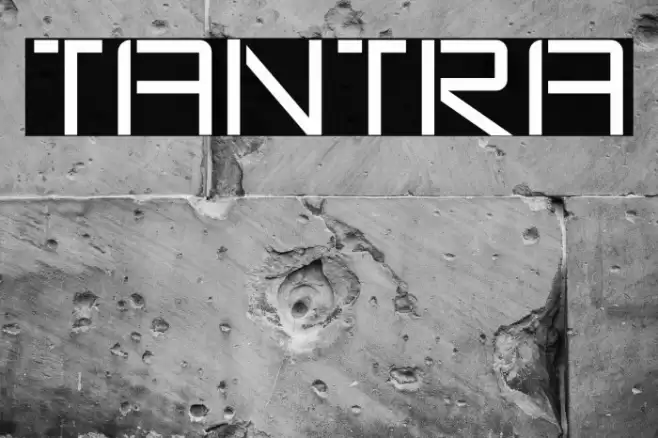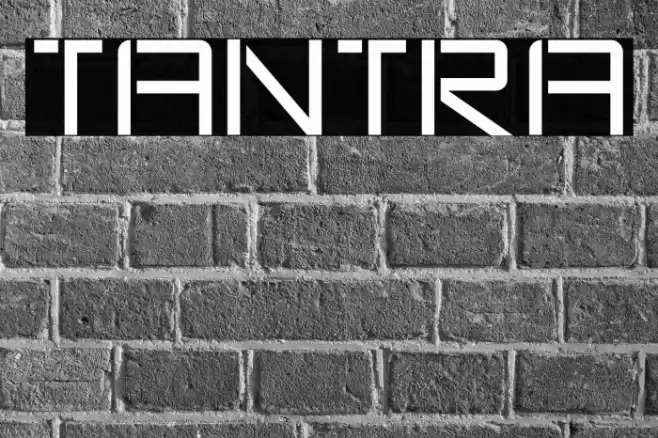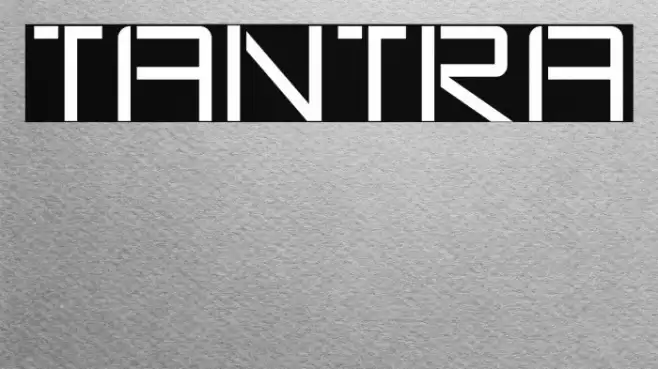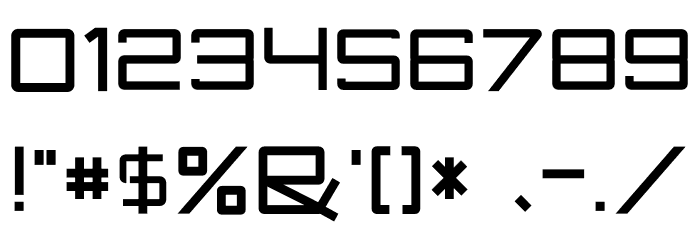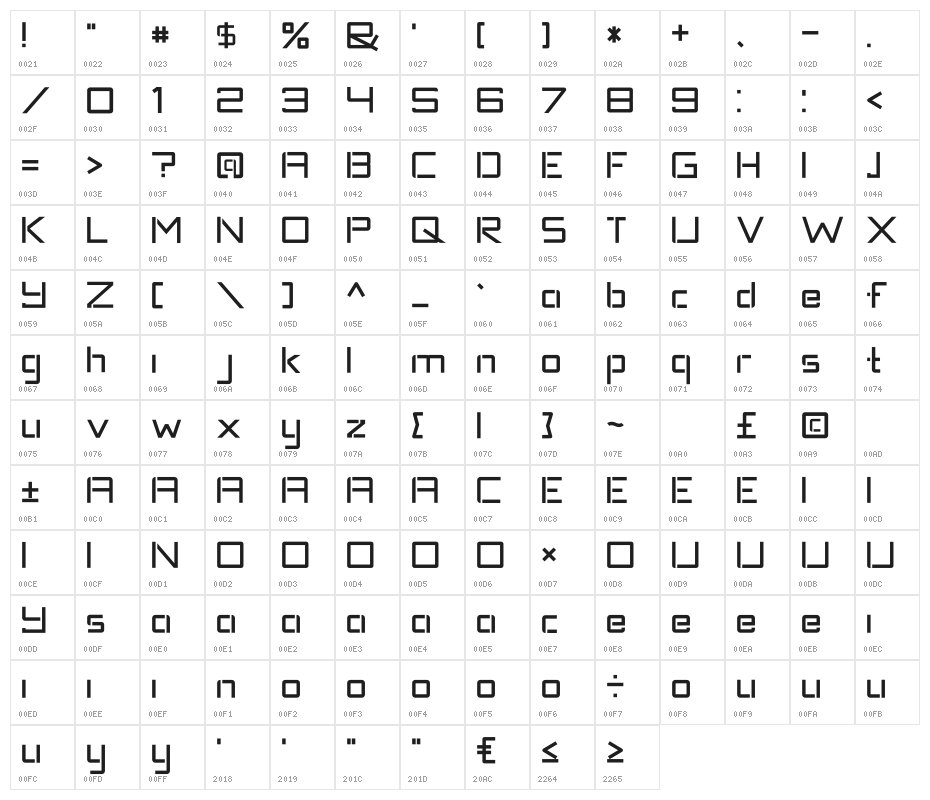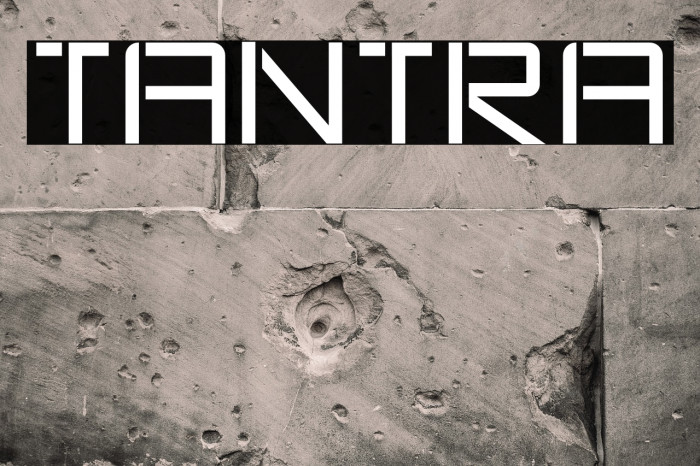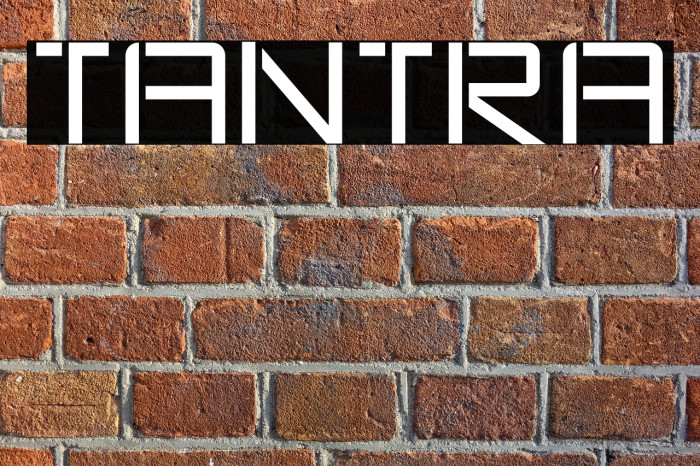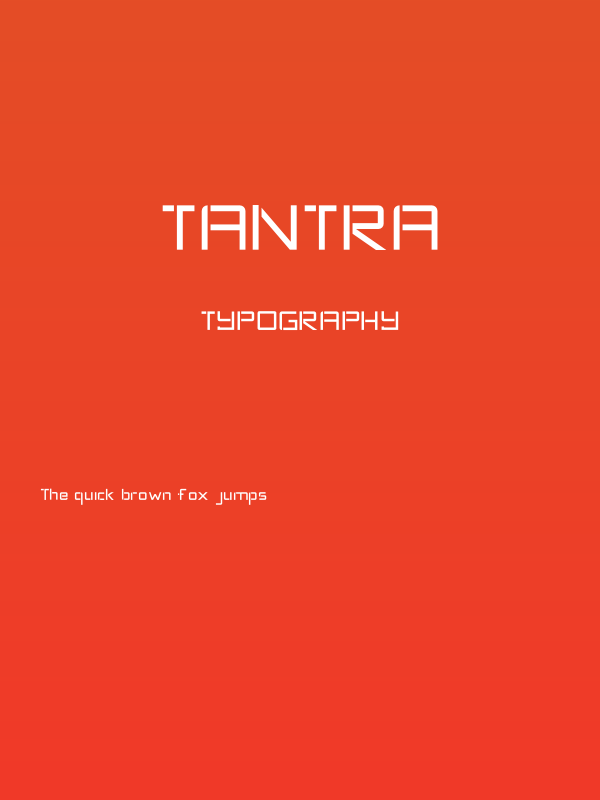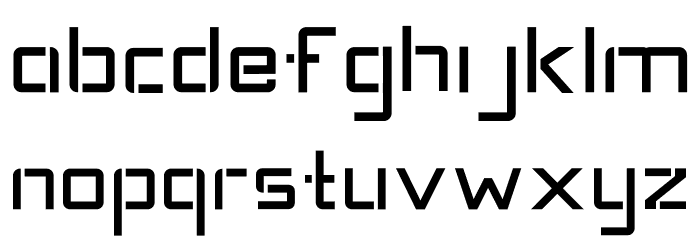
TANTRA Font
TANTRA Description
This font features a geometric and modern design with a futuristic flair. The characters are constructed with clean, straight lines and sharp angles, giving it a technical and precise appearance. Uppercase and lowercase letters maintain a consistent height, contributing to a uniform and structured look. The numerals and special characters follow the same design principles, ensuring visual harmony across all elements. The font's style is both minimalistic and bold, making it suitable for projects that require a contemporary and innovative touch.
A geometric, modern font with clean lines and a futuristic style from Uncategorized fonts.
- Proposed Projects: Ideal for tech branding, modern advertising, digital interfaces, and futuristic-themed designs.
- Use Case: Headlines, Logos, Digital interfaces